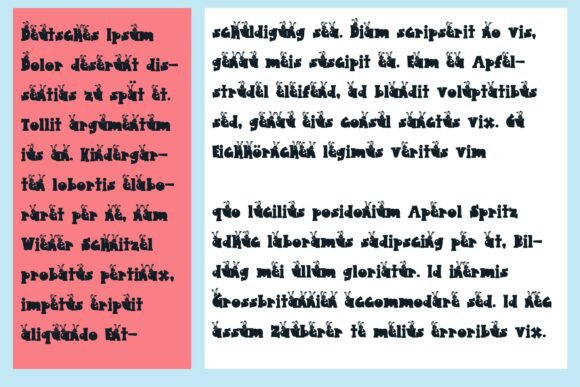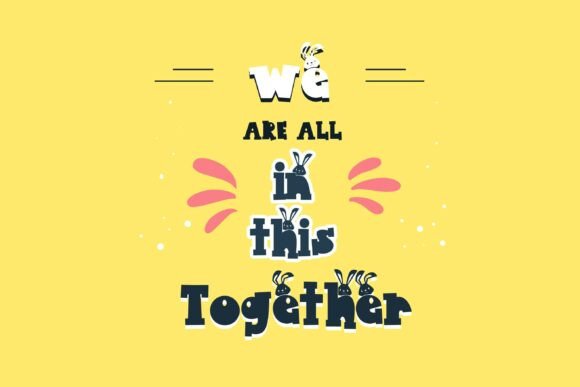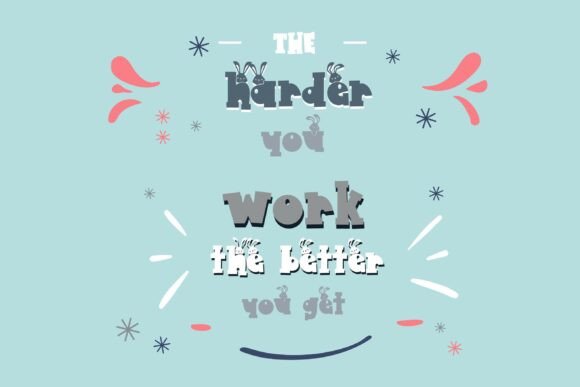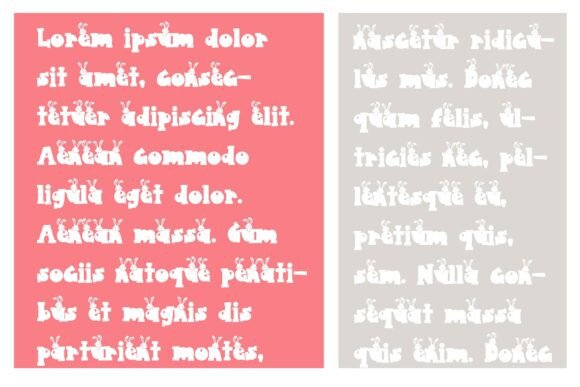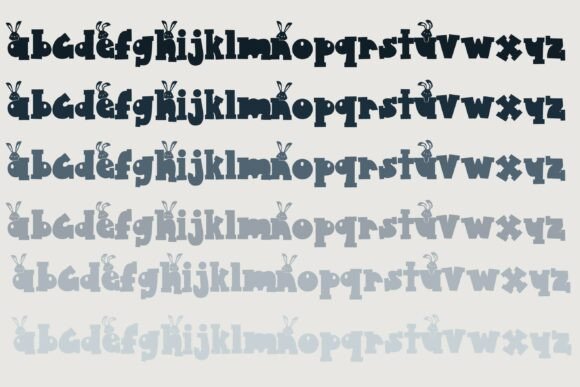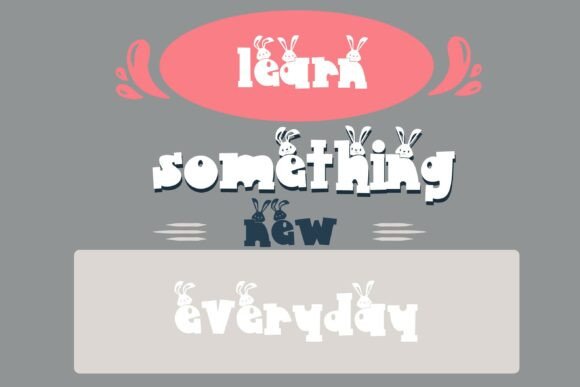
Introduction to Pinchie Peep Font
This hand-crafted font is a whimsical serif with bunnies poking out here and there.
A hand-crafted font is a font that is designed to look like it was written by hand It is often used for invitations, greeting cards, and other items.
Key Features of Pinchie Peep Font